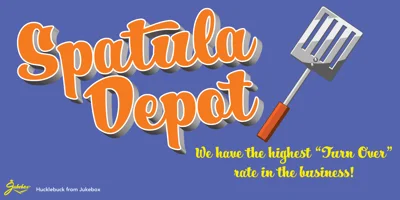
Hucklebuck JF Font
Hucklebuck JF Font is perfect for adventure summer camps, outdoor exploration branding, children's adventure books, wilderness education materials, scout organization logos, nature discovery programs, outdoor youth activities, and playful adventure marketing campaigns. This spirited typeface excels in applications where childhood adventure and outdoor exploration are essential.
What makes Hucklebuck JF Font so exciting is its adventurous ability to capture the free-spirited joy and boundless curiosity of childhood exploration through playful, adventure-inspired letterforms that embody the timeless appeal of outdoor discovery and youthful wanderlust. The font features energetic character shapes with exploration details and adventure-focused styling that evoke images of river rafting, forest trails, and the classic American spirit of childhood adventure stories. Its adventure-driven design philosophy combines nostalgic authenticity with contemporary playfulness, making it perfect for youth brands seeking to convey exploration excitement, outdoor education, and connection to adventure learning communities and childhood discovery culture.
Hucklebuck JF Font belongs to the adventure display font family, specifically designed for youth outdoor education and exploration-themed branding applications. This typeface family emphasizes playful visual energy through adventure-inspired styling and exploration character elements, ensuring authentic outdoor presentation across various youth education and adventure learning-focused design projects.
Inspire outdoor adventures with Hucklebuck JF Font, a typeface that embodies the spirited joy of childhood exploration and outdoor discovery learning. This adventurous font delivers exceptional energy for youth applications, featuring comprehensive character sets with adventure symbols and exploration punctuation marks that capture the essence of outdoor education and wilderness discovery. Its energetically crafted letterforms maintain excellent readability while preserving the authentic adventure aesthetic across various sizes, from small camp badges to large outdoor education center displays. The font's distinctive adventurous personality makes it invaluable for designers creating youth brands, outdoor education materials, and adventure content where conveying exploration spirit, outdoor learning, and childhood adventure is crucial for engaging families and youth education audiences seeking authentic outdoor experiences and adventure-based learning opportunities.